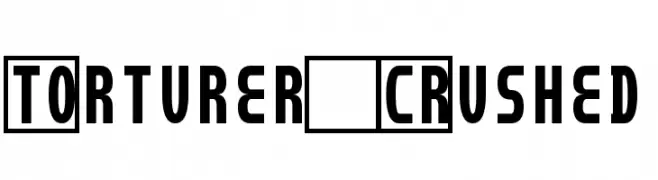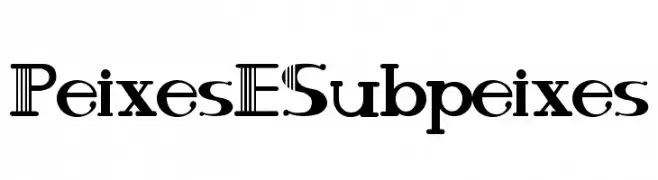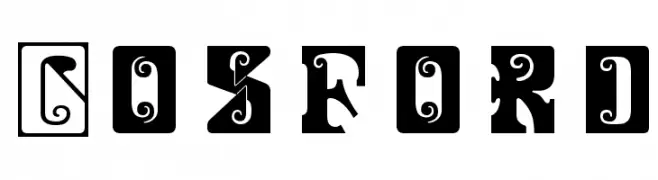
A bold, modern sans-serif font with clean lines and Thai script support.
An elegant script font with flowing, cursive strokes and ornate uppercase letters.
A classic serif typeface with bold uppercase and small caps lowercase letters, offering medium contrast and a formal appearance.
A bold, geometric font with boxed uppercase letters and consistent design.
A geometric, modern font with distinct horizontal lines and bold uppercase letters.
A dual-style font combining geometric uppercase letters with whimsical, flowing numerals and symbols.
A bold, decorative font with intricate swirls and framed uppercase letters.
A bold, decorative font with floral motifs in uppercase letters.